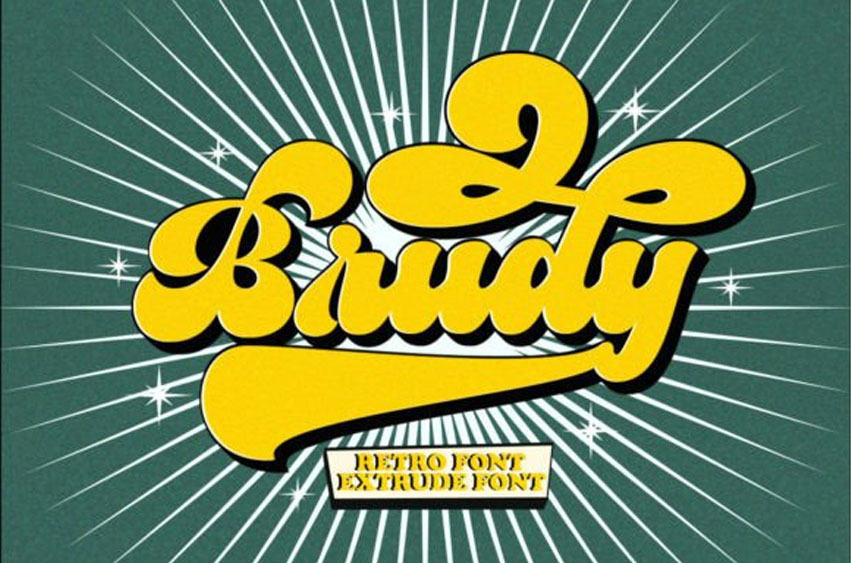
Brudy Font is an urban retro font with the style of logotype lettering.
It was created to help you design a logotype or lettering style for your Brand or your clients.